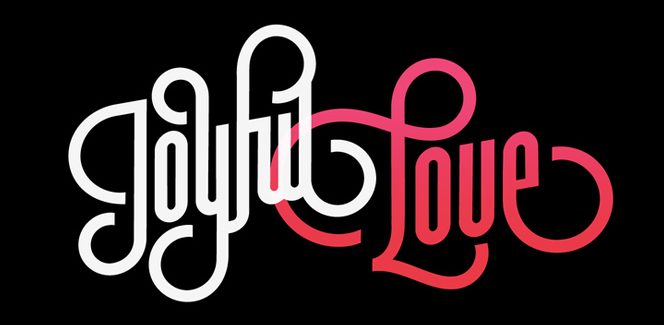
Vinyle typeface
Vinyle typeface is a bold, rounded and super cool script. Read Maximiliano’s text about his typeface:
In this epoque where all fields of Design are giving a lot of importance and attention to Typography and Lettering, I felt it was my duty to contribute with something that could really stand alone and ‘say something else’ that just words to be read.
I’ve found that lately in the world, regarding a finished piece of design, the role of Typography (and of letters in general) went from being secondary, (like a minor player or a supporting actor) to the most important one. People are starting to understand the beauty of a well-done letter: they want their storefronts with unique scripts, they want to drink coffee surrounded by lettered blackboards, they want to buy books with astonishing covers with swashes ‘por doquier’.
I’m more than happy to be alive in a present where even the most unimaginable friends of mine, (who couldn’t spot differences between comic sans and helvetica before) are now conscious of the importance of a letter, or let’s say: Of the ‘voice’ of Typography.
With Vinyle I tried to make a font with power. Following the nowadays trend of, let me say, “the vintage sans renaissance”.
This time I put my brushes and nibs aside and experimented with something new. It wasn’t easy, if you will pardon, for me to see swashes all over the place withouth the classic calligraphic ‘thick and thins’, but with after some weeks of work I started to love them.
Designer: Maximiliano Sproviero
Publisher: Lián Types